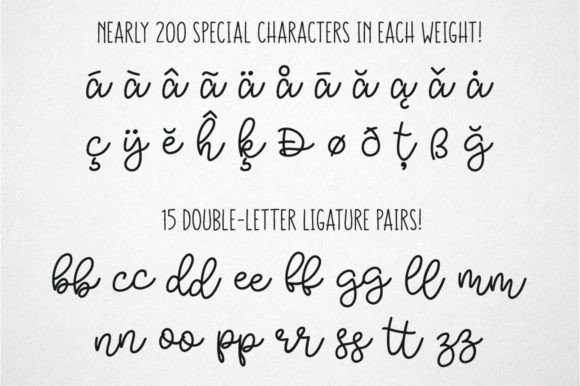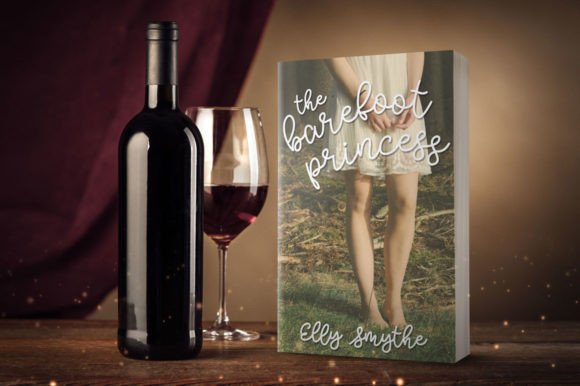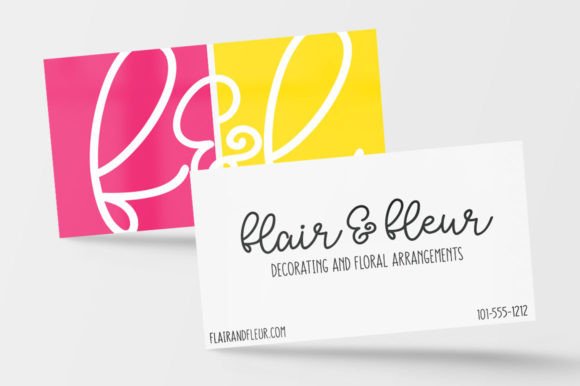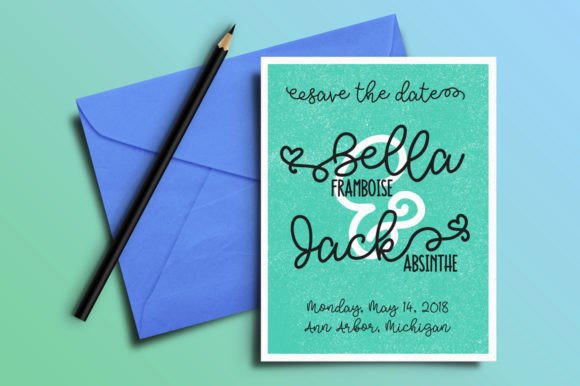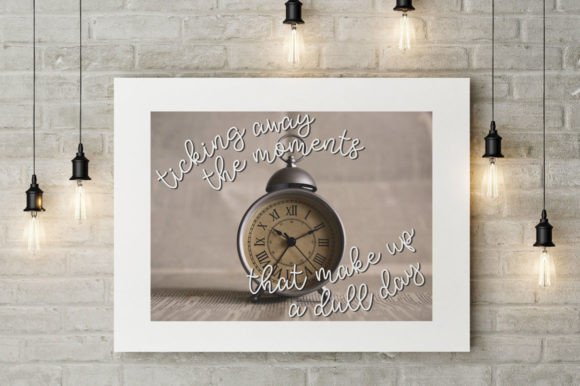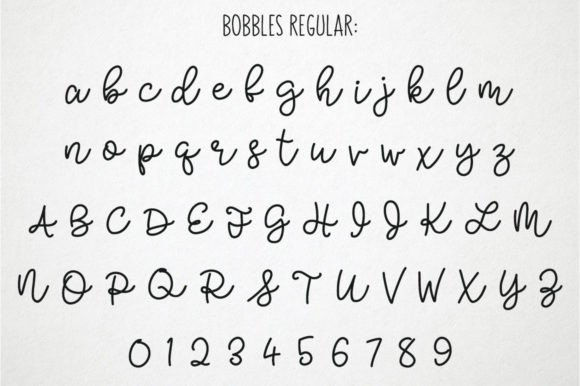
Introducing Bobbles Font: A Beautiful Handwritten Script Font Family
Are you looking for a unique and elegant font to add a personal touch to your designs? Look no further than Bobbles, a stunning handwritten script font family that is sure to capture your audience’s attention. With its three weights, extensive character set, and beautiful swashes, Bobbles is the perfect choice for a wide range of projects, from branding and advertising to packaging and crafting.
The Inspiration Behind Bobbles
The name “Bobbles” may evoke thoughts of bubbles or baubles, and it’s easy to see why. This lovely font family has a playful, whimsical feel that is reminiscent of carefree summer days and joyful celebrations. But don’t let its lighthearted vibe fool you – Bobbles is a highly versatile font that can be used in a variety of contexts, from formal to informal.
What Sets Bobbles Apart
So what makes Bobbles so special? For starters, it’s a monoweight script font, which means that it has a consistent line width throughout. This gives it a clean, elegant look that is perfect for headlines, titles, and other display text. But Bobbles is more than just a pretty face – it also includes an impressive range of characters and features, including:
- Three weights: Light, Regular, and Bold, to suit a variety of design needs
- Almost 200 accented and special characters, for support of multiple languages
- 15 double-lowercase ligatures, to add an extra touch of elegance to your text
- Eight intro and outro swashes, which can be easily inserted using your keyboard
Using Bobbles in Your Designs
So how can you use Bobbles in your designs? The possibilities are endless! Here are a few ideas to get you started:
- Branding and advertising: Use Bobbles to create eye-catching headlines and titles that will grab your audience’s attention.
- Packaging: Add a personal touch to your product packaging with Bobbles, which is perfect for labels, tags, and other design elements.
- Crafting: Use Bobbles to create beautiful journal pages, scrapbook layouts, and other craft projects.
Pairing Bobbles with Other Fonts
One of the best things about Bobbles is how well it pairs with other fonts. The Trawll sans-serif font, which is included in the bundle, is a perfect match for Bobbles. But you can also experiment with other fonts to find the perfect combination for your design. Here are a few tips for pairing Bobbles with other fonts:
- Use a contrasting font: Pair Bobbles with a font that has a very different style, such as a bold serif font or a clean sans-serif font.
- Choose a font with a similar feel: If you want to create a cohesive look, try pairing Bobbles with a font that has a similar feel or style.
| Font Name | Bobbles Font |
| Author | GeekMissy |